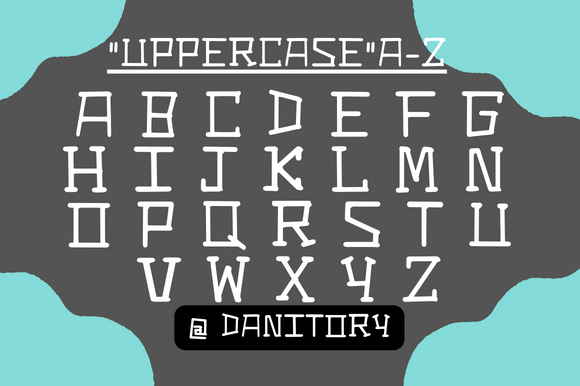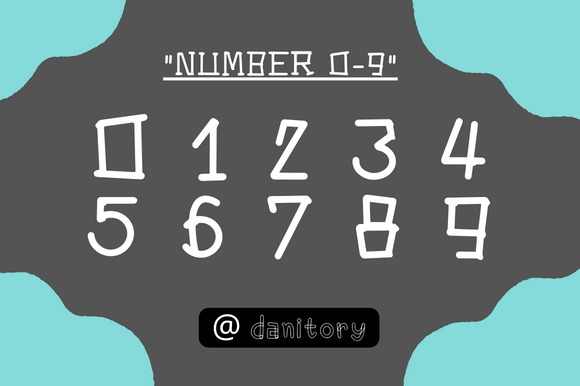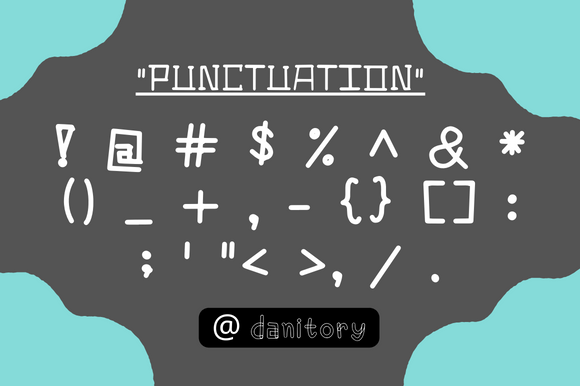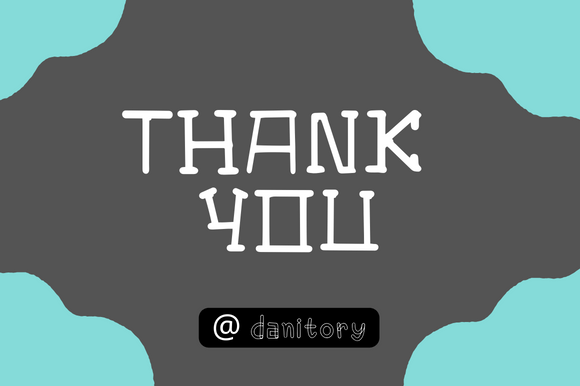
Zonnie
Zonnie: A Visual and Fun Slab Serif Font
Zonnie is a visual slab serif font featuring straightforward, intuitive, and natural design elements. This unique typeface brings fun and creativity to various design projects.
Key Features of Zonnie
• Visual Design: Offers straightforward, natural letterforms.
• Intuitive Style: Brings user-friendly character to designs.
• Fun Appeal: Adds playful elements to projects.
• Creative Potential: Perfect for expressive designs.
When using Zonnie in your designs, keep these tips in mind:
• Try it for t-shirt designs to showcase its visual style.
• Use its natural character for intuitive layouts.
• Let its fun appeal enhance creative projects.
• Take advantage of its straightforward nature for clear communication.
To sum up, Zonnie is an excellent choice for designers seeking a visual and fun slab serif font. Whether you’re creating t-shirt designs or working on other creative projects, Zonnie offers the perfect blend of straightforward style and playful character.
Furthermore, Zonnie’s distinctive design allows it to shine in contexts where both clarity and creativity are key. The font can elevate your projects with its natural style while maintaining an intuitive appeal that makes designs more engaging and fun.
In conclusion, Zonnie truly captures the essence of visual design in slab serif typography. For those wanting to add a touch of straightforward creativity to their work, Zonnie can enhance any design with its distinctive style. Ultimately, it’s perfect for designers aiming to make fun, intuitive impacts across their creative projects.